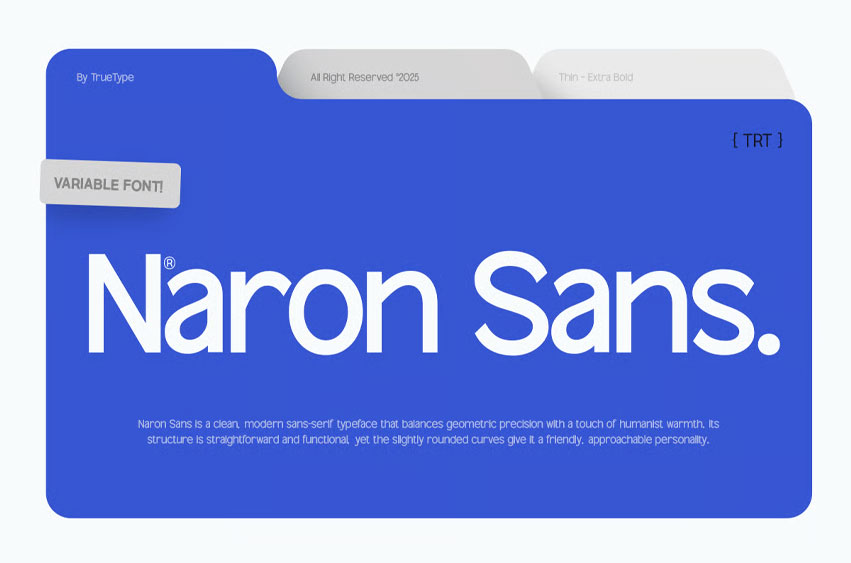
Naron Font is a bold and modern sans serif typeface rooted in semi-grotesque tradition, reimagined for today’s visual language. With its clean geometry, confident curves, and subtle humanist touches, TBJ Naron strikes the perfect balance between clarity and personality.
Crafted for versatility, TBJ Naron excels across a range of design applications — from digital interfaces and editorial layouts to impactful branding and bold display use. Its consistent rhythm and strong forms ensure readability in both large and small sizes, while its unique ligatures and refined letterforms offer a distinctive visual voice.
Whether you’re building a tech brand, designing UI/UX content, or creating modern packaging, TBJ Naron provides the professional edge you need. It’s not just a font — it’s a toolkit for expressive, modern typography.